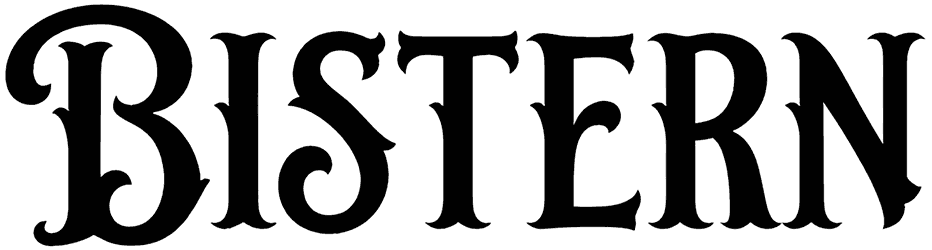
Bistern Font
Bistern is a fancy retro font that has two sets of uppercase and no lowercase characters. It works well as a headline or title font, especially on banners and posters. You can use it to make designs like ancient displays or to give your projects a feeling of nostalgia.